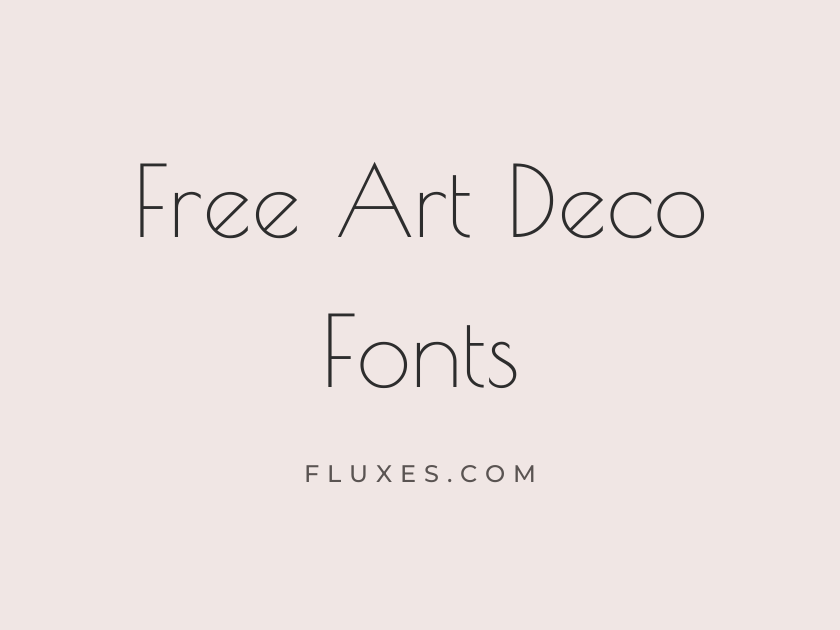
62 Best Free Art Deco Fonts
Art deco design still feels impossibly glamorous: geometric symmetry, gilded ornament, and the streamlined confidence of skyscrapers, ocean liners, and jazz age nightlife. Finding free art deco fonts that capture that 1920s and 1930s spirit without paying for a licensed revival can be tricky, since so many of the period’s iconic display faces (Broadway, Bifur, Metropolis) are locked behind commercial foundries. Fortunately, Google Fonts has quietly built up a strong library of geometric sans-serifs, high-contrast serifs, and decorative display faces that channel the same energy for branding, wedding stationery, posters, and web headers.
The fonts below span the full range of the style, from the streamlined geometric sans-serifs that echo Kabel and Erbar, to the ornate serifs and stencils that recall Parisian fashion plates and Broadway marquees.
1. Poiret One
Named after the couturier Paul Poiret, this ultra-thin geometric face is pure 1920s Paris, all circles and hairline strokes. It reads best large, in headlines, monograms, or logotypes, since its delicate weight disappears at small sizes.
2. Josefin Sans
Josefin Sans was drawn with 1920s geometric sans-serifs in mind, and it shows in the perfectly round letterforms and tall x-height. It works equally well as elegant body copy or as a light, sophisticated headline face, making it one of the most versatile picks on this list.
3. Jost
Jost is a direct homage to Kabel, the geometric sans that defined so much deco-era German typography. It has more warmth than a strict geometric grid would suggest, which makes it comfortable in longer headings as well as logotypes.
4. Montserrat
Inspired by old signage in the Montserrat neighborhood of Buenos Aires, this geometric sans borrows heavily from the same urban lettering tradition that shaped art deco architecture. It is a dependable, thoroughly modern choice for branding that wants a hint of period geometry without feeling costume-like.
5. Montserrat Alternates
This variant swaps in squared, notched, and stencil-like alternates for several letters, pushing the geometric feel further toward genuine deco ornament. Reserve it for short headlines or logotypes where those distinctive characters can shine.
6. Raleway
Raleway’s thin weight has a refined, almost aristocratic quality that suits invitations and fashion-adjacent branding. It is more neutral than most fonts on this list, which makes it a dependable body-text partner for louder deco display faces.
7. Tenor Sans
There is something coolly architectural about Tenor Sans, with its narrow proportions and understated geometry. Use it for subheads, captions, or navigation on a deco-themed website where the display type is doing the heavy lifting.
8. Julius Sans One
Extremely thin and wide, Julius Sans One works best as widely tracked all-caps headers, evoking the streamlined lettering found on 1930s travel posters. It struggles at small sizes, so keep it for titles rather than paragraphs.
9. Federo
Federo mixes geometric bones with slightly rounded terminals, giving it a friendlier, more theatrical character than stricter deco sans faces. It suits event branding, posters, and anywhere a touch of showbiz glamour is welcome.
10. Questrial
As a free alternative to Century Gothic and Futura, Questrial delivers the same confident circular geometry that underpins so much deco lettering. It is clean enough for interfaces yet retains enough period character for headlines.
11. Six Caps
Six Caps is Oswald’s ultra-condensed cousin, built for cramming bold, tall letters into tight spaces like posters and marquee signage. It only comes in capitals, which suits the shouting, declarative tone of deco advertising.
12. Fjalla One
A sturdy condensed sans with a bit of warmth in its curves, Fjalla One handles both headlines and mid-size text comfortably. It is a practical workhorse for a deco-inspired website that still needs to be legible.
13. Oswald
Oswald reworks the classic gothic condensed style of early twentieth-century posters and newspaper mastheads for the screen. It is widely used, which makes it a safe, highly readable choice when a project needs deco flavor without much risk.
14. Bebas Neue
Few free fonts say bold, confident poster lettering quite like Bebas Neue. Its tight spacing and all-caps-only design make it ideal for short, punchy headlines rather than sentences.
Whether the goal is a wedding invitation, a jazz-age event poster, or a fashion brand with old-world polish, this collection offers enough range to build a full deco identity entirely from free Google Fonts.